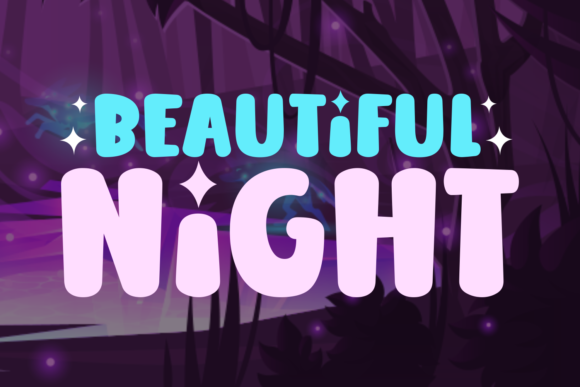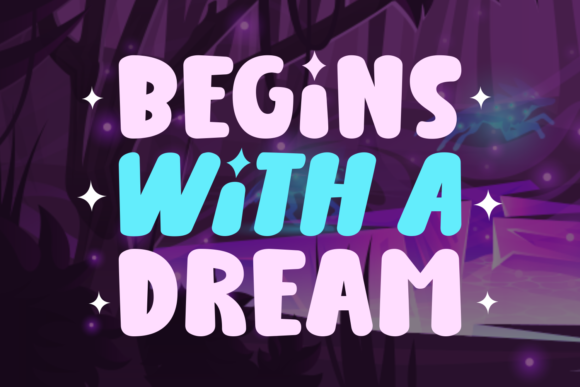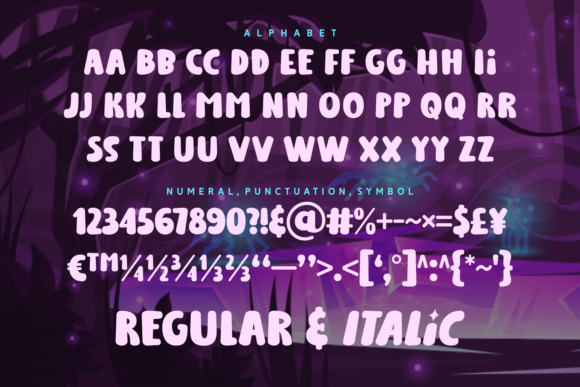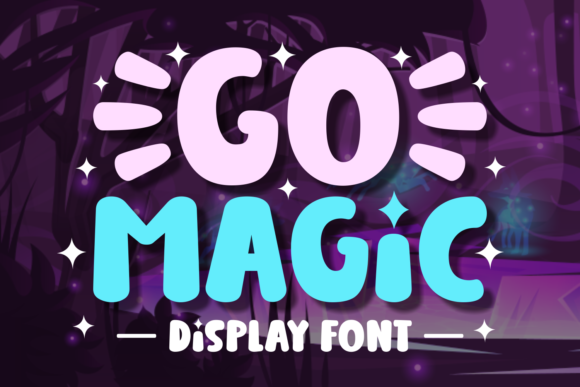
Introducing Go Magic Font: The Ultimate Display Font for Bold Creations
Are you tired of using the same old fonts for your designs? Look no further! Go Magic Font is here to revolutionize your creative projects with its unique and captivating style. This splendid display font is suitable for all bold creations, making it perfect for designers and crafters who want to make a statement.
What Makes Go Magic Font Special?
Go Magic Font is designed to help you create eye-catching and impressive designs that stand out from the crowd. Its distinctive and bold style makes it ideal for use in various projects, including:
• Banners: Create attention-grabbing banners that showcase your brand or message with Go Magic Font.
• Book Covers: Make your book cover design pop with this stunning font, perfect for fiction and non-fiction books alike.
• Posters: Design bold and striking posters that grab the attention of your audience.
• Ads: Use Go Magic Font to create ads that stand out and leave a lasting impression on your target audience.
• Social Media Posts: Elevate your social media game with eye-catching posts that feature Go Magic Font.
Key Features of Go Magic Font
Go Magic Font comes with a range of features that make it a versatile and practical choice for designers and crafters. Some of its key features include:
• Unique Style: Go Magic Font boasts a one-of-a-kind style that’s sure to make your designs stand out.
• Bold and Eye-Catching: This font is designed to grab attention and make a statement.
• High-Quality: Go Magic Font is crafted with high-quality design elements, ensuring it looks great in any project.
Tips for Using Go Magic Font
To get the most out of Go Magic Font, here are some tips to keep in mind:
• Use it Sparingly: While Go Magic Font is bold and eye-catching, it’s best to use it sparingly to avoid overwhelming your design.
• Pair it with Other Fonts: Experiment with pairing Go Magic Font with other fonts to create a unique and visually appealing design.
• Adjust Font Size: Play around with different font sizes to find the perfect balance for your design.
• Experiment with Colors: Try out different colors to find the perfect match for your Go Magic Font design.
Who Can Benefit from Go Magic Font?
Go Magic Font is perfect for a range of designers and crafters, including:
• Graphic Designers: Add a bold and eye-catching touch to your designs with Go Magic Font.
• Book Publishers: Create stunning book covers that grab attention with this unique font.
• Social Media Influencers: Elevate your social media game with eye-catching posts featuring Go Magic Font.
• Crafters: Use Go Magic Font to add a professional touch to your DIY projects, such as handmade cards and invitations.
Go Magic Font is a game-changer for designers and crafters who want to create bold and eye-catching designs. With its unique style, bold and eye-catching features, and ease of use, this font is perfect for a range of projects. Whether you’re a graphic designer, book publisher, social media influencer, or crafter, Go Magic Font is sure to take your designs to the next level.